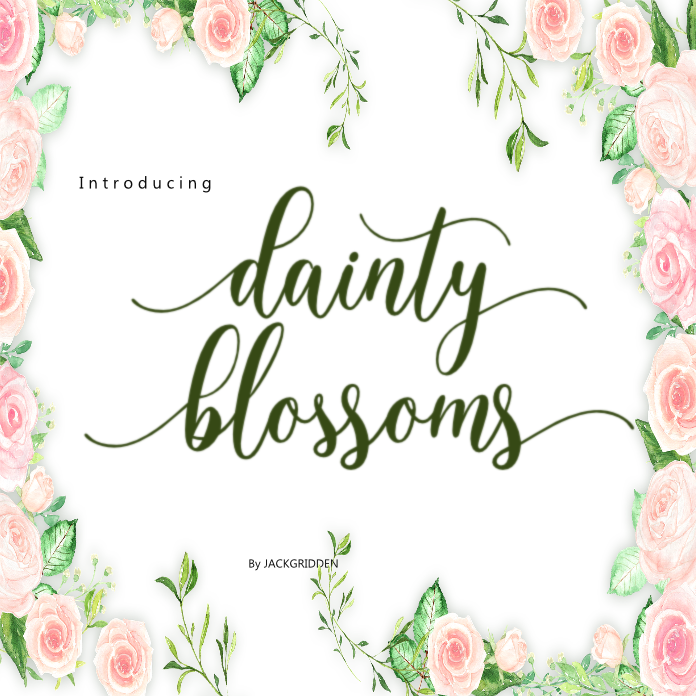
Dainty Blossoms is a chic hand calligraphy font that elegantly combines modern and classic styles. Its smooth, flowing lines and whimsical curves make it perfect for a variety of design projects, from wedding invitations to branding and beyond. Whether used for titles, signatures, or decorative elements, Dainty Blossoms brings a touch of grace and sophistication to any creation. Ideal for those seeking a refined yet approachable aesthetic, this font adds a floral charm that will captivate your audience.